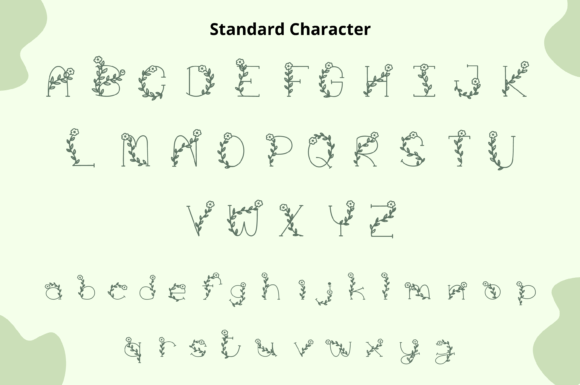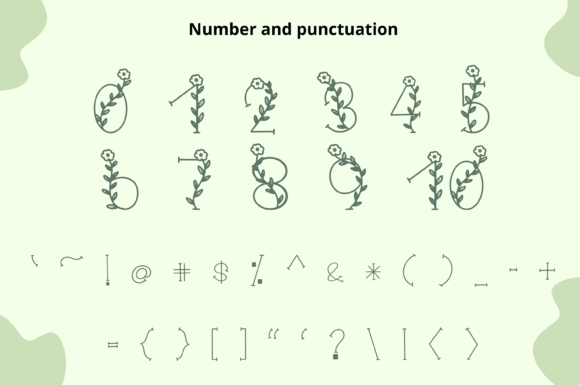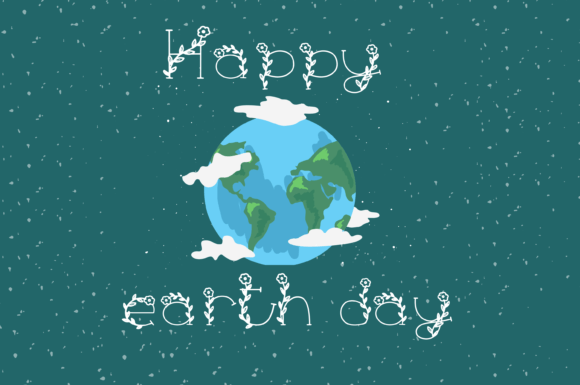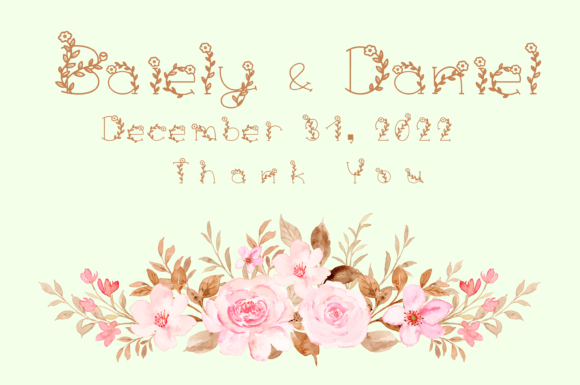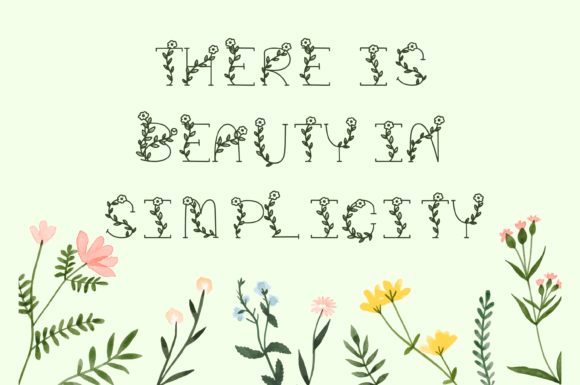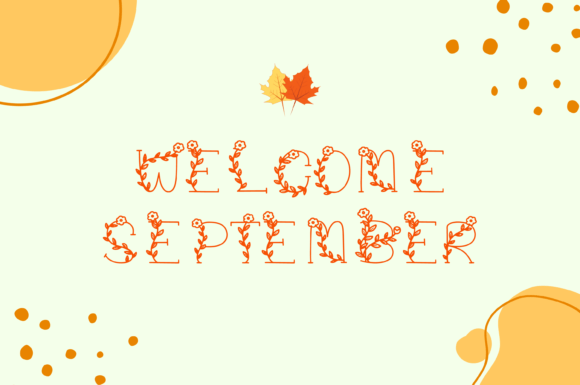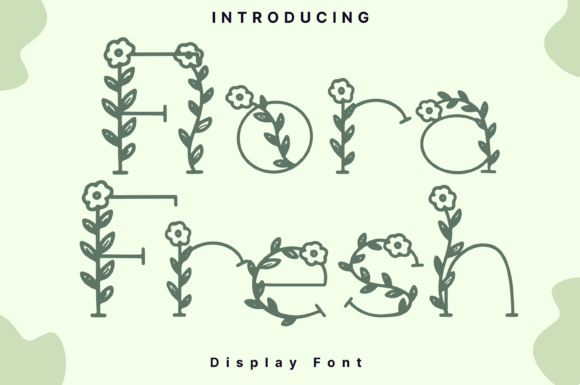
Introducing Flora Fresh Font: Elevate Your Designs with a Whimsical Touch
Are you on the hunt for a font that adds a dash of whimsy and cleanliness to your designs? Look no further than Flora Fresh Font! This beautiful, handwritten font is perfect for designers and crafters seeking to infuse their projects with a fresh and playful vibe. In this article, we’ll dive into the world of Flora Fresh Font, exploring its features, uses, and benefits, as well as provide tips on how to make the most of this versatile typeface.
What is Flora Fresh Font?
Flora Fresh Font is a delightful, handwritten font designed to bring a touch of elegance and playfulness to your designs. Its clean lines, flowing curves, and charming character make it an excellent choice for a wide range of projects, from branding and packaging to invitations and crafts. Whether you’re a professional designer or a DIY enthusiast, Flora Fresh Font is sure to become a staple in your font collection.
Key Features of Flora Fresh Font
- Whimsical and Clean Design: Flora Fresh Font boasts a unique blend of whimsy and cleanliness, making it perfect for designs that require a touch of personality.
- Handwritten Style: The font’s handwritten style gives it a warm, friendly feel that’s perfect for creating a connection with your audience.
- Versatility: Flora Fresh Font can be used in a wide range of projects, from digital designs to print materials.
- Ease of Use: This font is incredibly easy to use, even for those with limited design experience.
Uses of Flora Fresh Font
Flora Fresh Font is an incredibly versatile typeface that can be used in a variety of projects, including:
- Branding and Packaging: Add a touch of whimsy to your brand’s logo, packaging, and marketing materials.
- Invitations and Stationery: Create beautiful, one-of-a-kind invitations, greeting cards, and stationery.
- Crafts and DIY Projects: Use Flora Fresh Font to add a personal touch to your craft projects, such as scrapbooking, journaling, and sewing.
- Digital Designs: Incorporate Flora Fresh Font into your digital designs, including social media graphics, blog posts, and website headers.
Benefits of Using Flora Fresh Font
So, why choose Flora Fresh Font for your designs? Here are just a few benefits:
- Unique and Eye-Catching: Flora Fresh Font adds a touch of personality to your designs, making them stand out from the crowd.
- Easy to Read: The font’s clean design and flowing curves make it easy to read, even at smaller sizes.
- Time-Saving: With Flora Fresh Font, you can create professional-looking designs in no time, saving you time and effort.
Tips for Using Flora Fresh Font
To get the most out of Flora Fresh Font, here are a few tips:
- Experiment with Colors: Pair Flora Fresh Font with a range of colors to create unique and eye-catching designs.
- Mix and Match: Combine Flora Fresh Font with other fonts and design elements to create visually interesting designs.
- Pay Attention to Size: Adjust the font size to suit your design needs, from large headings to smaller body text.
- Have Fun: Don’t be afraid to get creative and try new things with Flora Fresh Font!